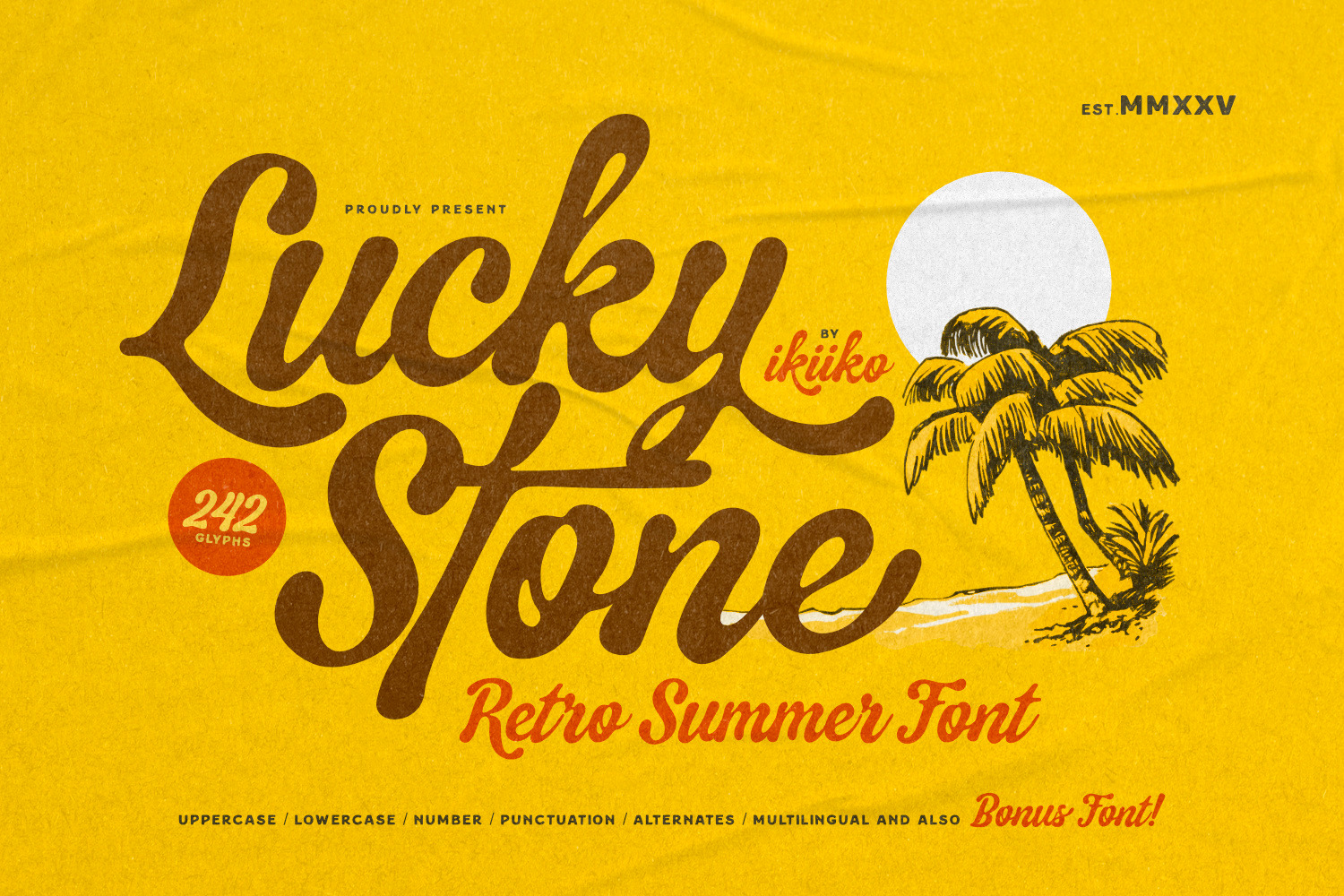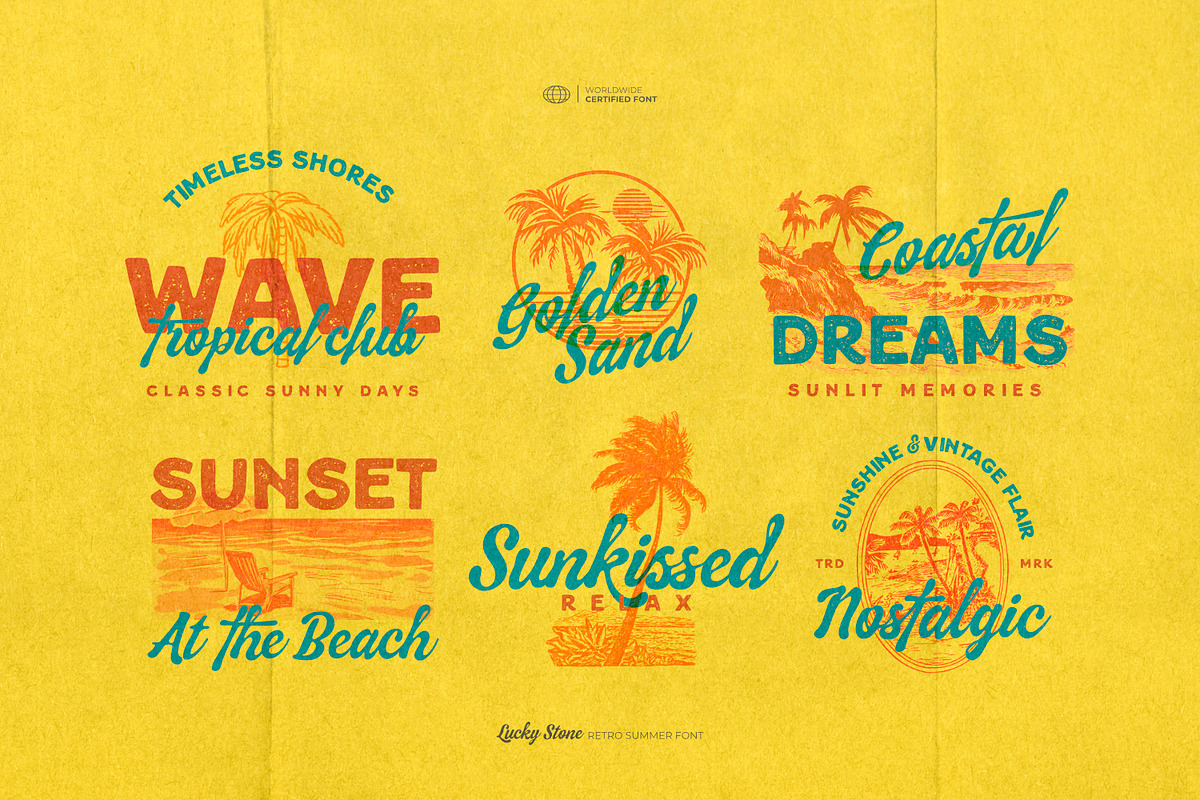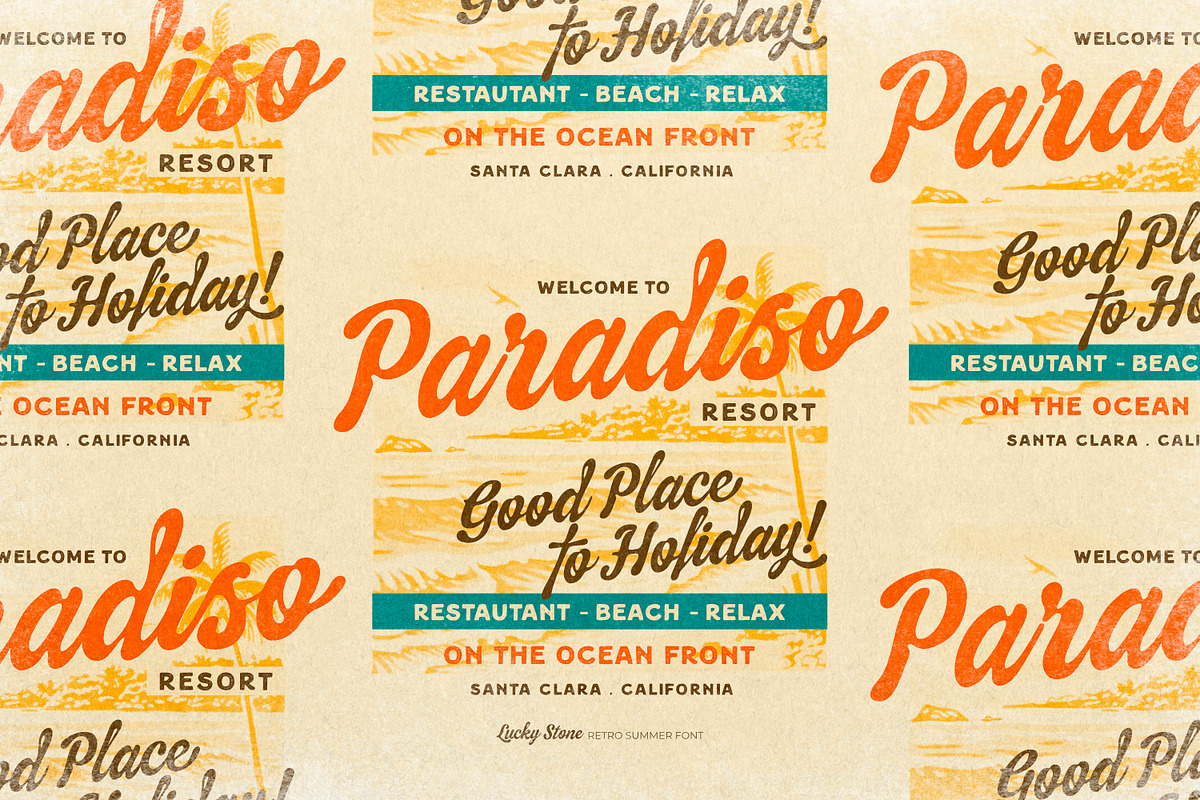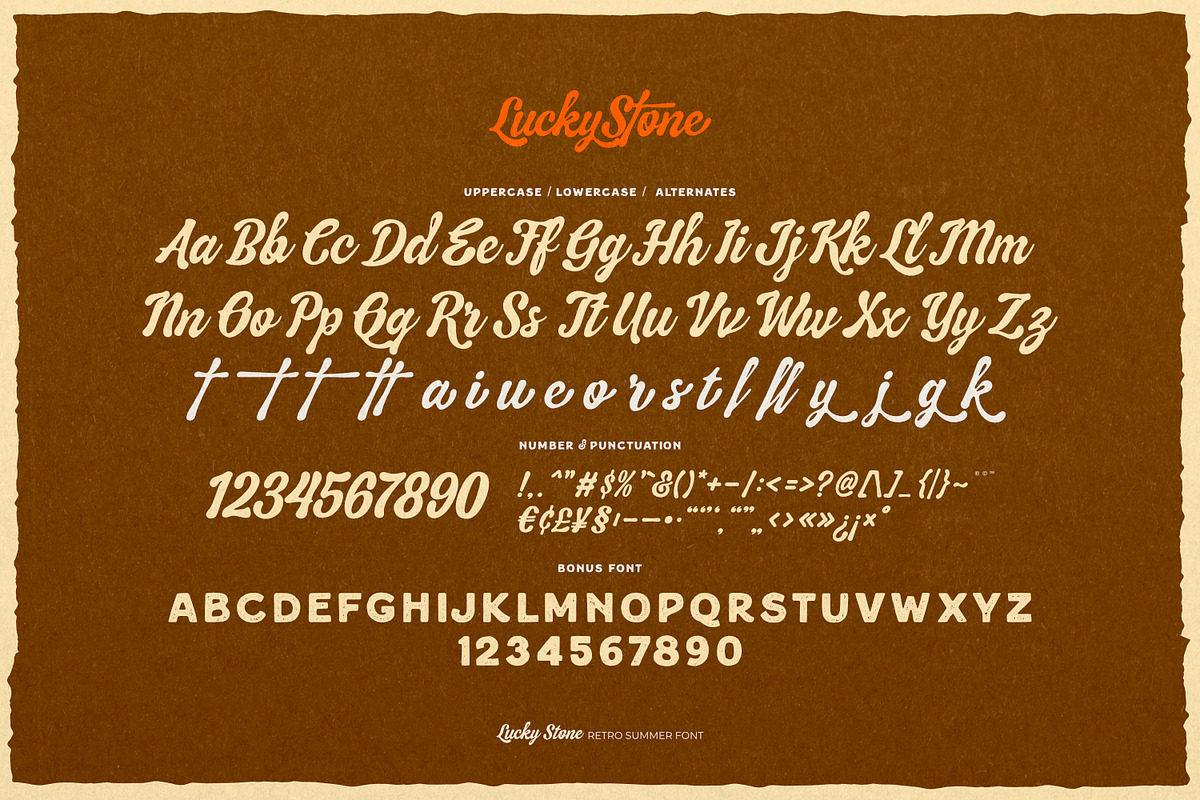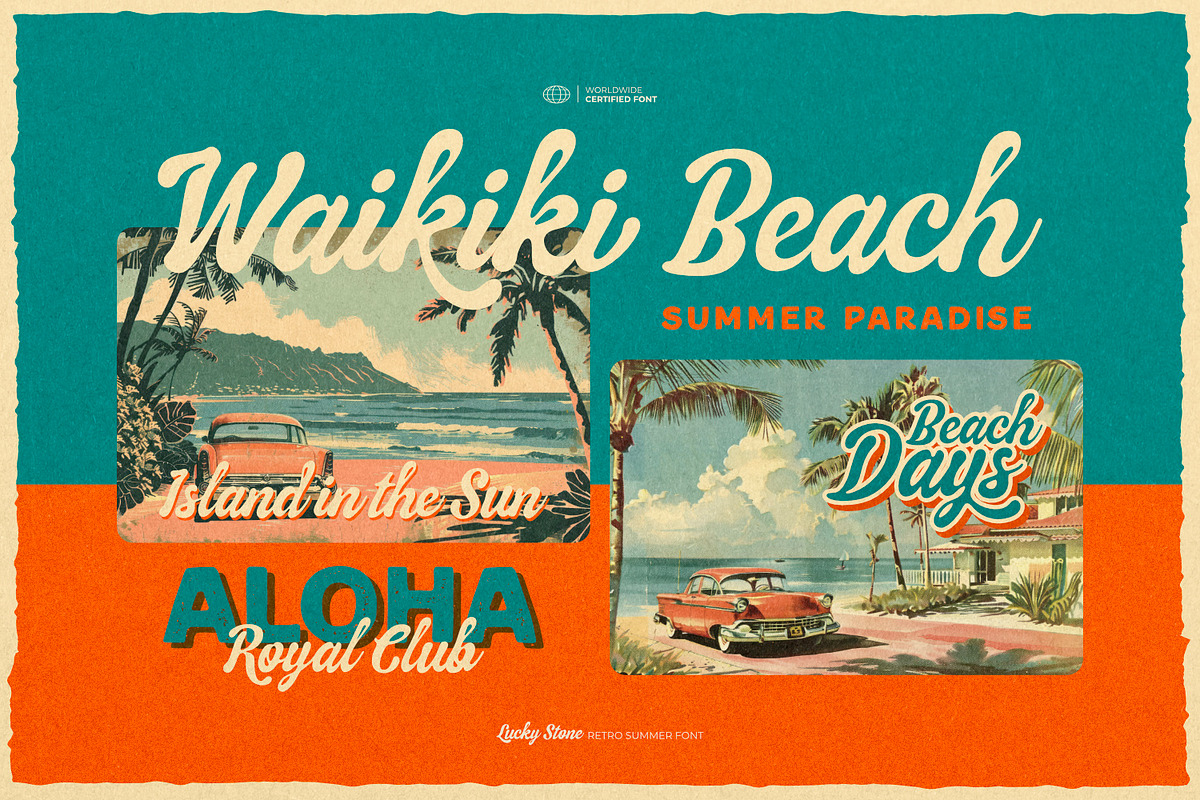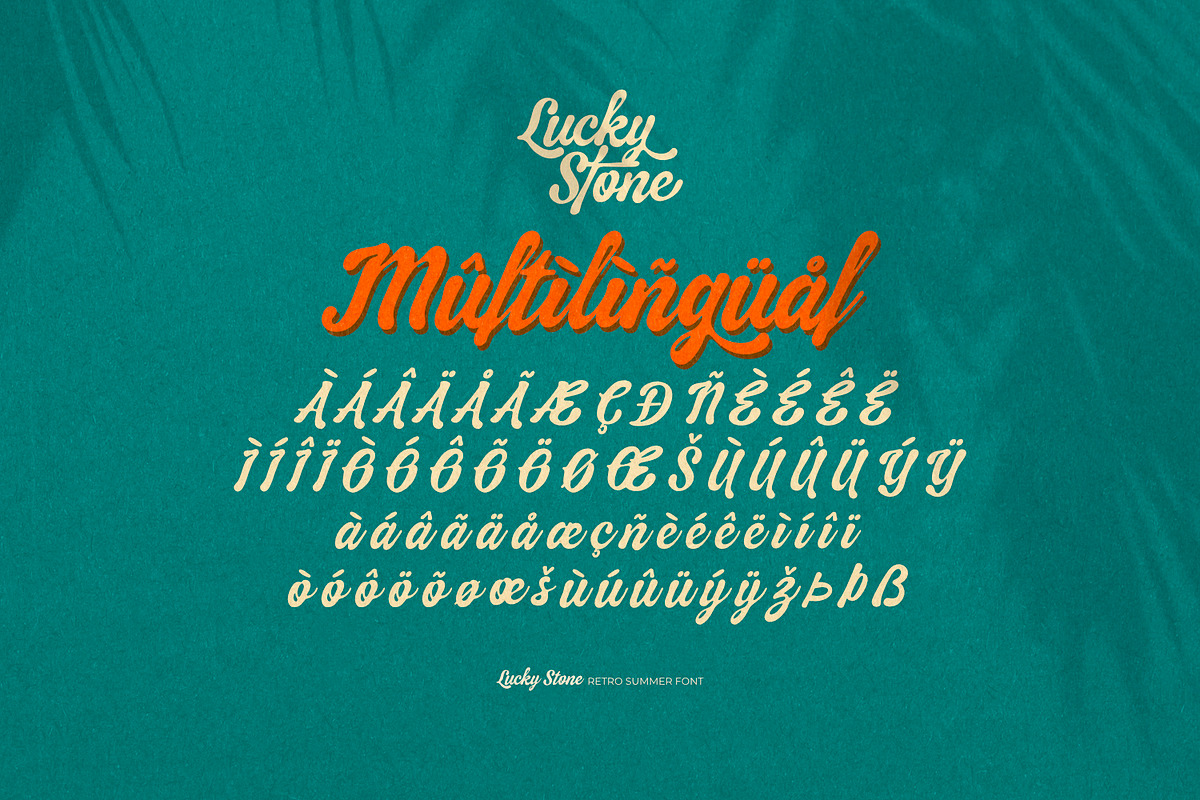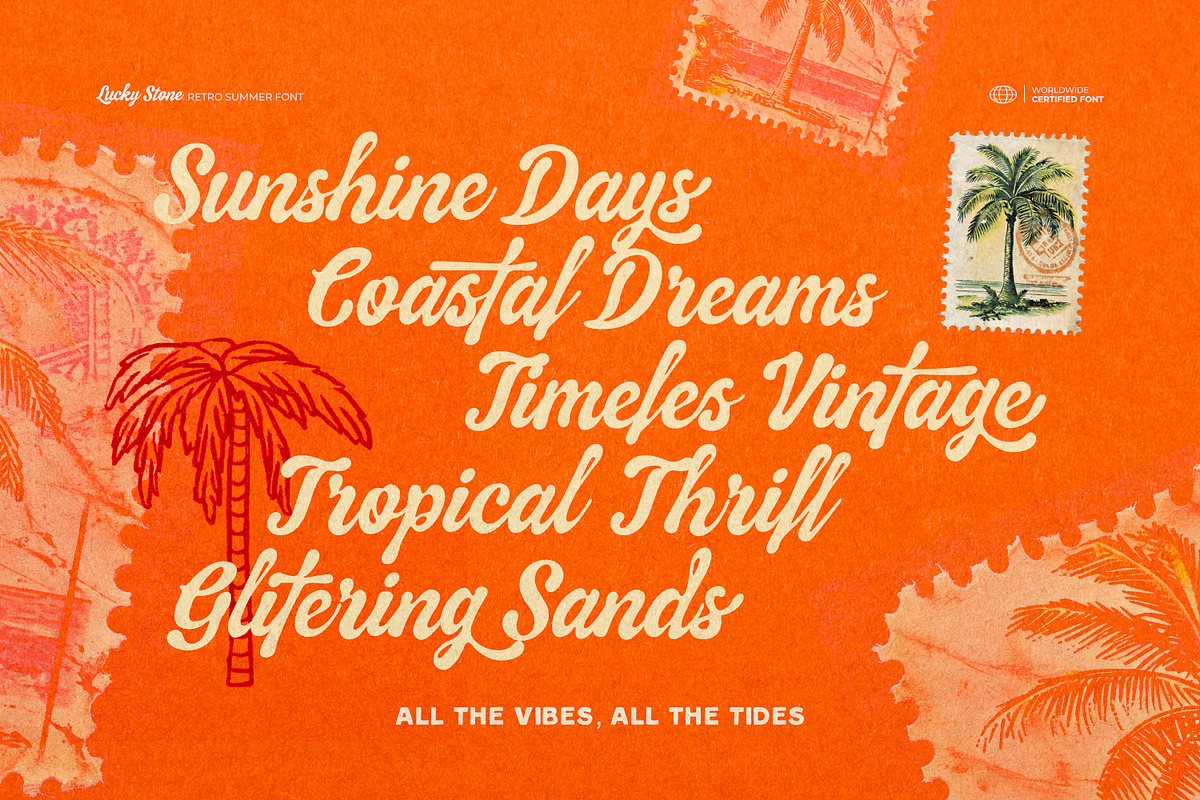
Lucky Stone - Vintage Summer Font
Proudly present Lucky Stone - Vintage Summer Font, created by ikiiko.
Lucky Stone is a retro script font that captures the vibrant charm of the 60s, evoking sunny summer days and breezy beach vibes. Perfectly crafted to embody vintage aesthetics, it’s a must-have for creating timeless designs that echo the nostalgia of old-school summer posters. With its smooth curves and bold strokes, Lucky Stone offers a seamless blend of elegance and playfulness, reminiscent of hand-painted signage on vintage beach shops or tropical resort ads.
As a special bonus, this font also includes a hand-drawn sans-serif font, designed to perfectly complement the script. This additional typeface adds versatility to your designs, making it easy to create stunning font combinations that enhance the vintage and beach vibes.
This font is perfect for a vintage posters, logotype, packaging, book cover, social media ads, summer party invitations, branding projects, or anything that seeks to celebrate the joy of summertime.